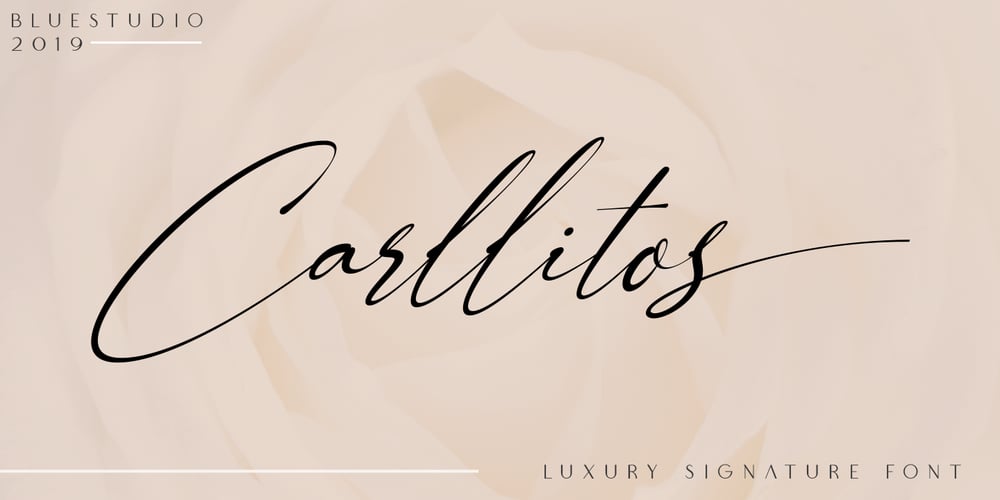
Carllitos Font Family was designed by Winarno and published by Bluestudio. Carllitos contains 1 styles and family package options. Hello.. Introducing our latest product Carllitos luxury Signature Font. Carllitos is made to resemble hand scratches, so has a natural look, like your own hand scratches. Carllitos offers beautiful typographic harmony for a variety of design projects, including watermark, logos, branding, wedding designs, social media posts, advertisements, product designs, magazines and others. What’s included? You will get : -Ligature -swashes -Multilingual support We can’t wait to hear your comments and we are very grateful for your visit to our store. Happy designing!